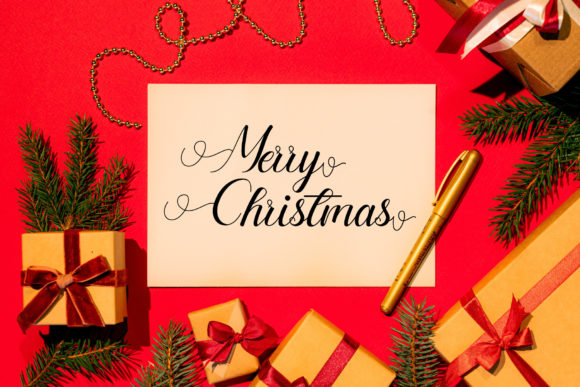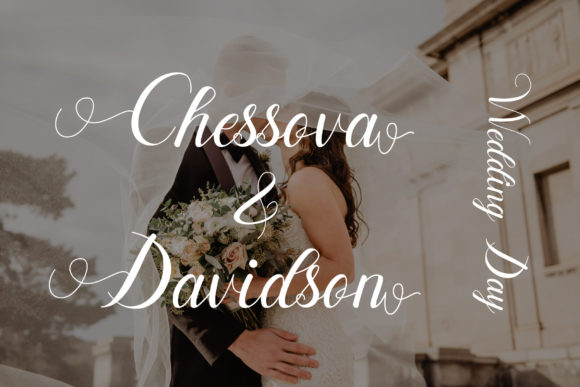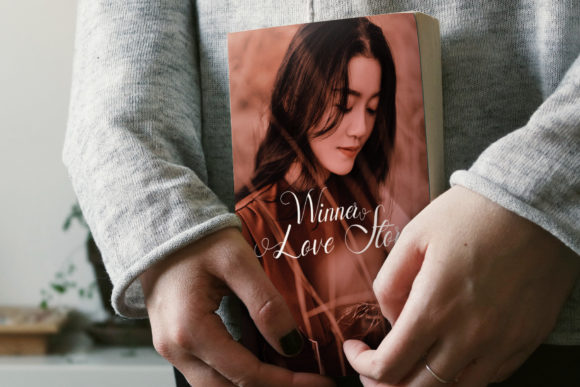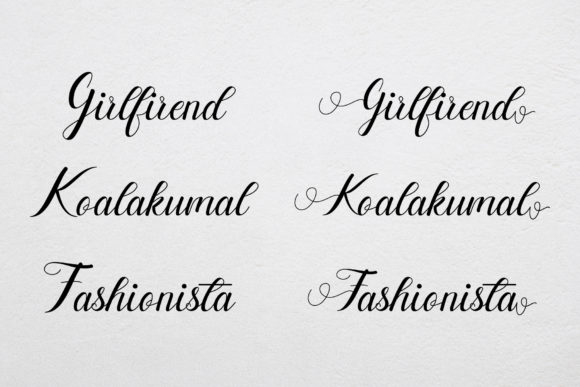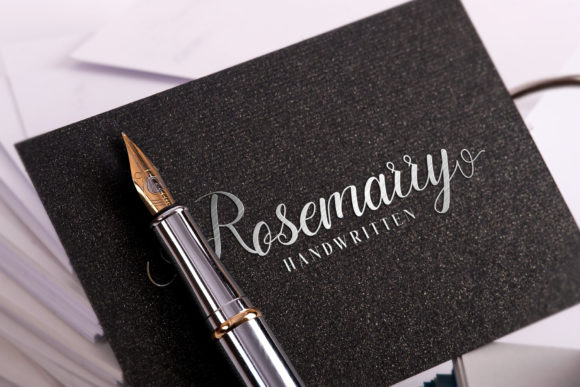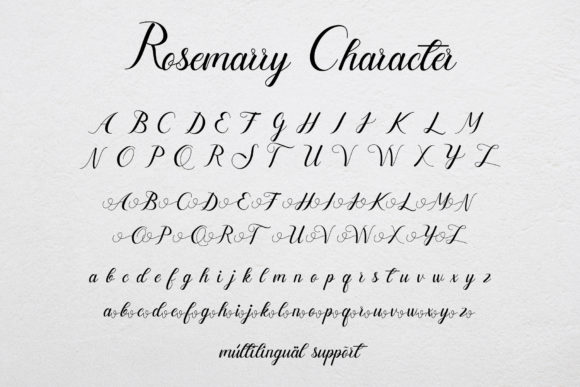
Introduction to Rosemarry Font
Rosemarry is a stylish and refined handwritten font.
It looks beautiful on a variety of designs requiring a personalized style, such as wedding invitations, thank you cards, weddings, greeting cards, logos and so much more This font is PUA encoded which means you can access all of the glyphs and swashes with ease.
Key Features of Rosemarry Font
Why Choose Rosemarry Font?
Rosemarry Font offers exceptional quality and versatility, making it a valuable addition to your design toolkit. Whether you’re creating for personal projects or commercial use, Rosemarry Font delivers professional results.